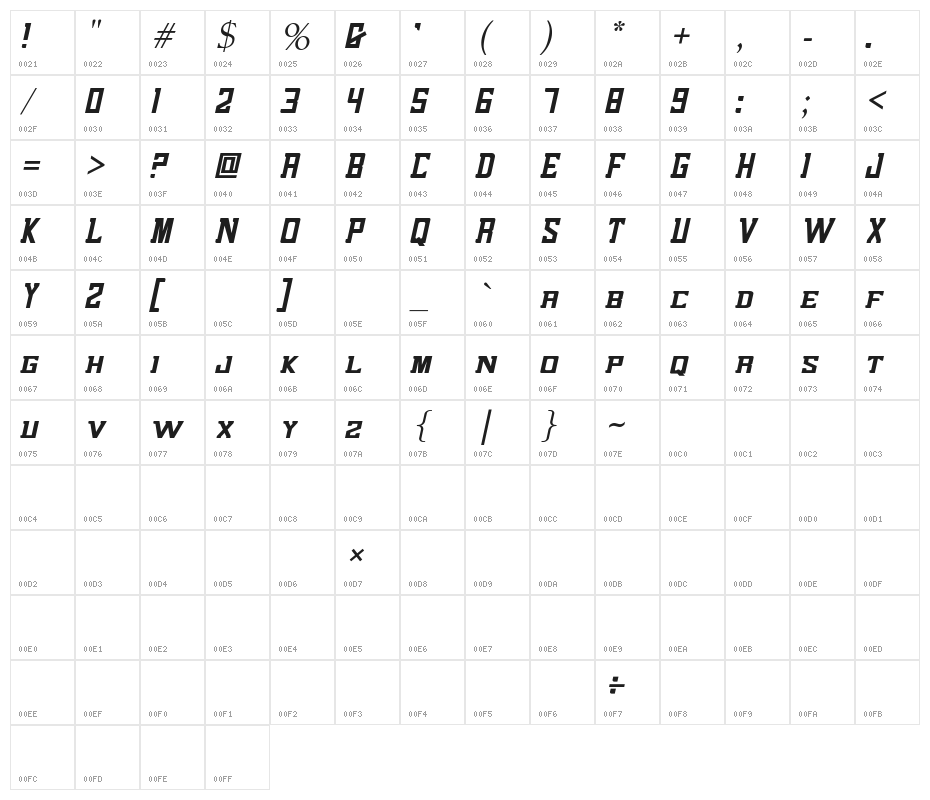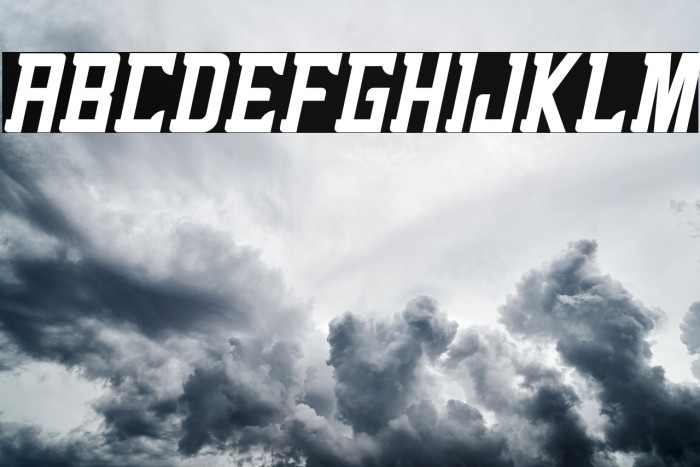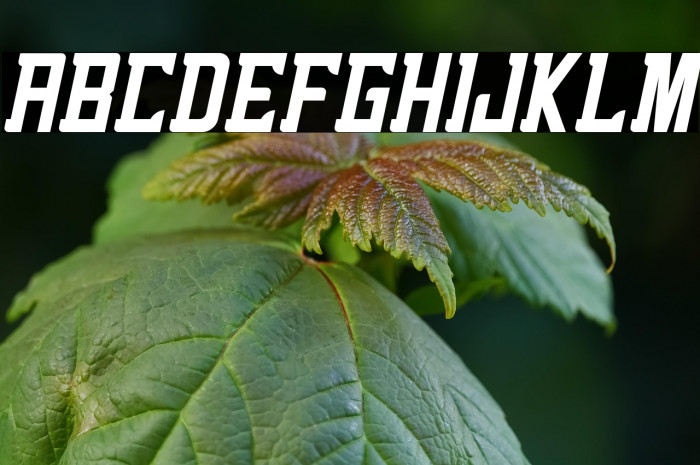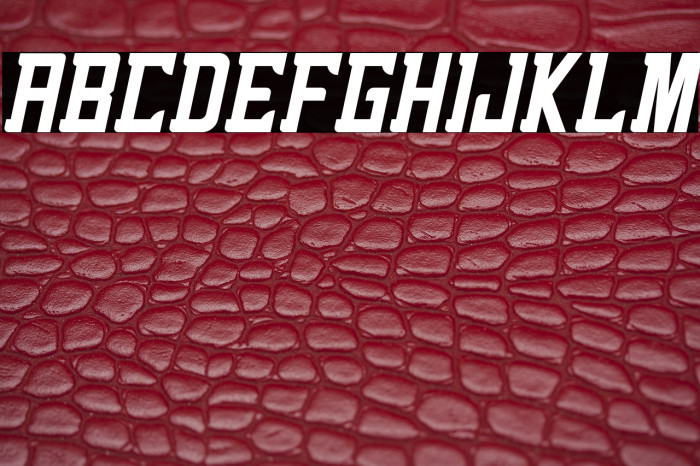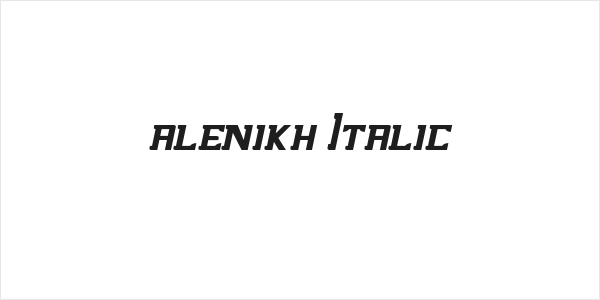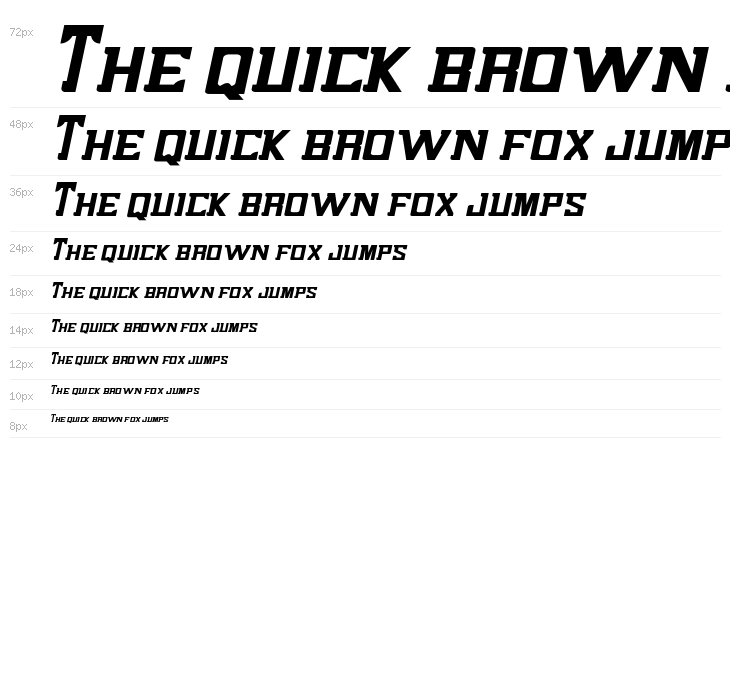
alenikh Italic Font
alenikh Italic Description
This font features a bold and dynamic style with a slight italic slant, giving it a sense of movement and energy. The characters are robust and angular, with sharp edges and a modern aesthetic. The uppercase letters are particularly striking, with a strong presence that commands attention. The numerals and special characters maintain the same boldness, ensuring consistency across all text elements. This font is ideal for projects that require a strong visual impact, such as sports branding, action-themed posters, or dynamic headlines.
| Proposed Projects | Sports branding, action-themed posters, dynamic headlines. |